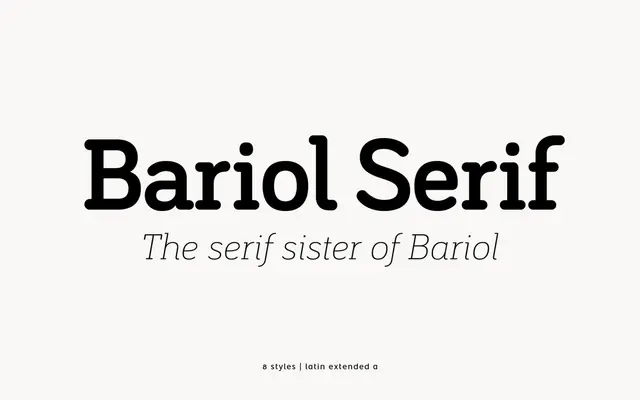
Bariol Serif
A softly rounded humanist serif in four weights with italics, drawn as the serif companion to Bariol.
A humanist serif by atipo foundry that pairs with the Bariol sans. The family runs through Thin, Light, Regular and Bold with matching italics, giving eight styles in total. OpenType features include standard and discretionary ligatures, stylistic alternates, case-sensitive forms, lining, tabular and oldstyle figures, and a full set of pre-designed fractions, numerators, denominators, superscript, scientific inferiors and ordinals. Latin language coverage runs across the main European scripts.
A softly rounded humanist serif drawn as a serif companion to Bariol. Open apertures, gentle bracketed serifs and a warm tone for editorial text and branding.